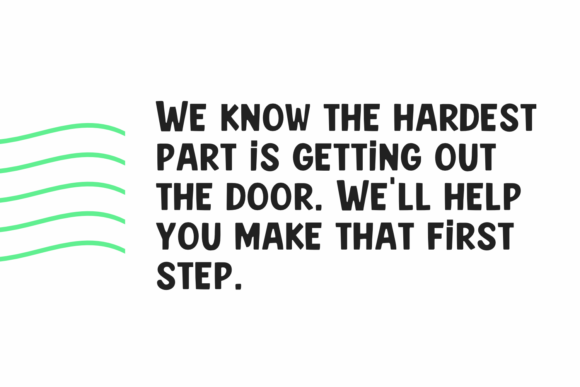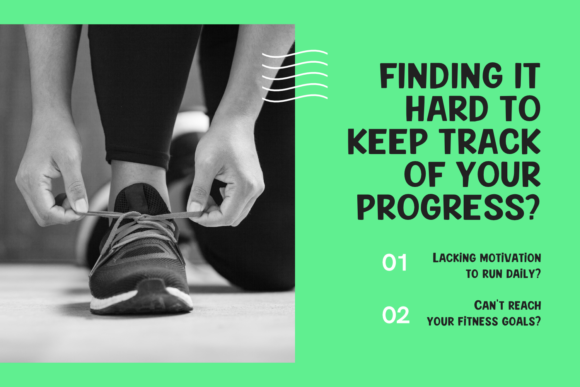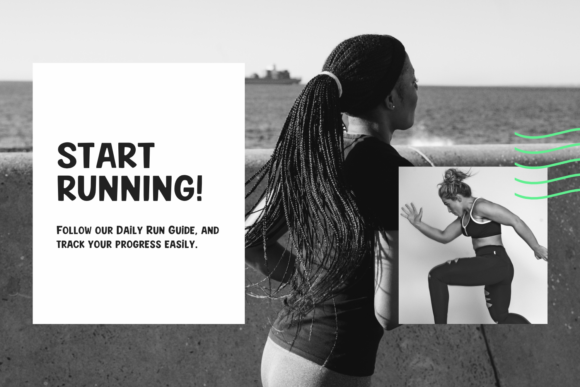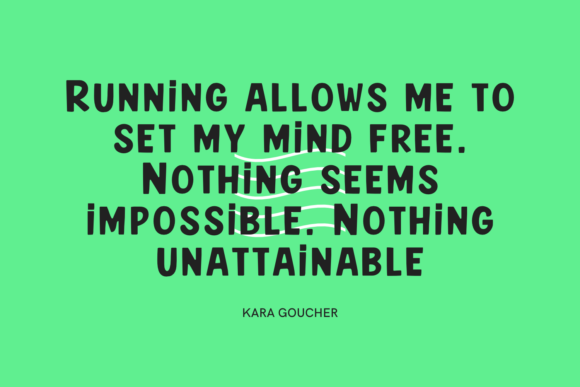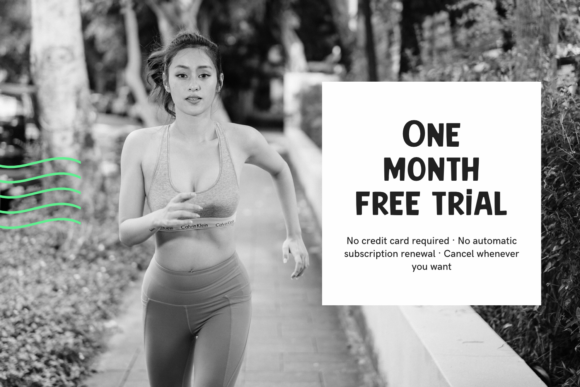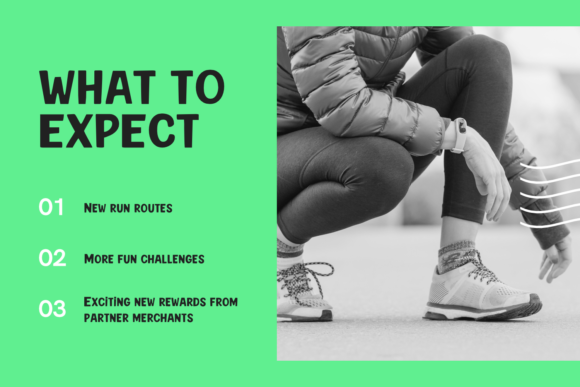
Unleashing Creativity with Every Run Font
Have you ever stared at a blank canvas, waiting for inspiration to strike? That moment when the perfect font pops into your mind and brings your project to life – it’s pure magic. For designers and crafty enthusiasts, finding the right font can make all the difference in elevating their work from good to great.
Enter Every Run Font, a bold and playful display font designed to add a touch of trendiness to any project. Whether you’re creating digital designs, crafting greeting cards, or making presentations, Every Run Font is the perfect addition to bring your vision to life. Its versatility and unique style make it a valuable asset for designers looking to stand out from the crowd.
With Every Run Font, you’ll never run out of creative possibilities. Its perfect blend of style and functionality makes it a must-have for any designer looking to take their projects to the next level.
Key Features of Every Run Font
- Unique Characteristics: The font features a unique blend of modern and classic elements, making it suitable for a wide range of design applications, from digital interfaces to print materials.
Every Run Font Review
Overall, I think Every Run Font is a decent choice for designers looking for a modern, sporty font. Here are some things that work well:
- ✨ The font’s unique combination of curved and straight lines creates a visually appealing effect.
- ✨ Every Run Font is highly legible, even at smaller sizes.
- ✨ The font’s versatility makes it suitable for a wide range of applications, from sports and fitness to fashion and lifestyle.
- ⚠️ The font may not be the best choice for formal or traditional designs, as its sporty vibe can be a bit too casual.
- ⚠️ Some users may find the font’s curves and lines a bit too playful, which can make it difficult to read at very large sizes.
- ⚠️ The font’s lack of subtlety may make it difficult to pair with more subdued or muted color schemes.
In conclusion, I think Every Run Font is a solid choice for designers who want a modern, energetic font for their projects. While it may not be the best fit for every design, its unique style and versatility make it a great option for the right projects.
The Every Run Font is ideal for:
- Creating eye-catching headings and titles.
- Adding a unique touch to your branding and marketing materials.
- Designing digital products and applications.